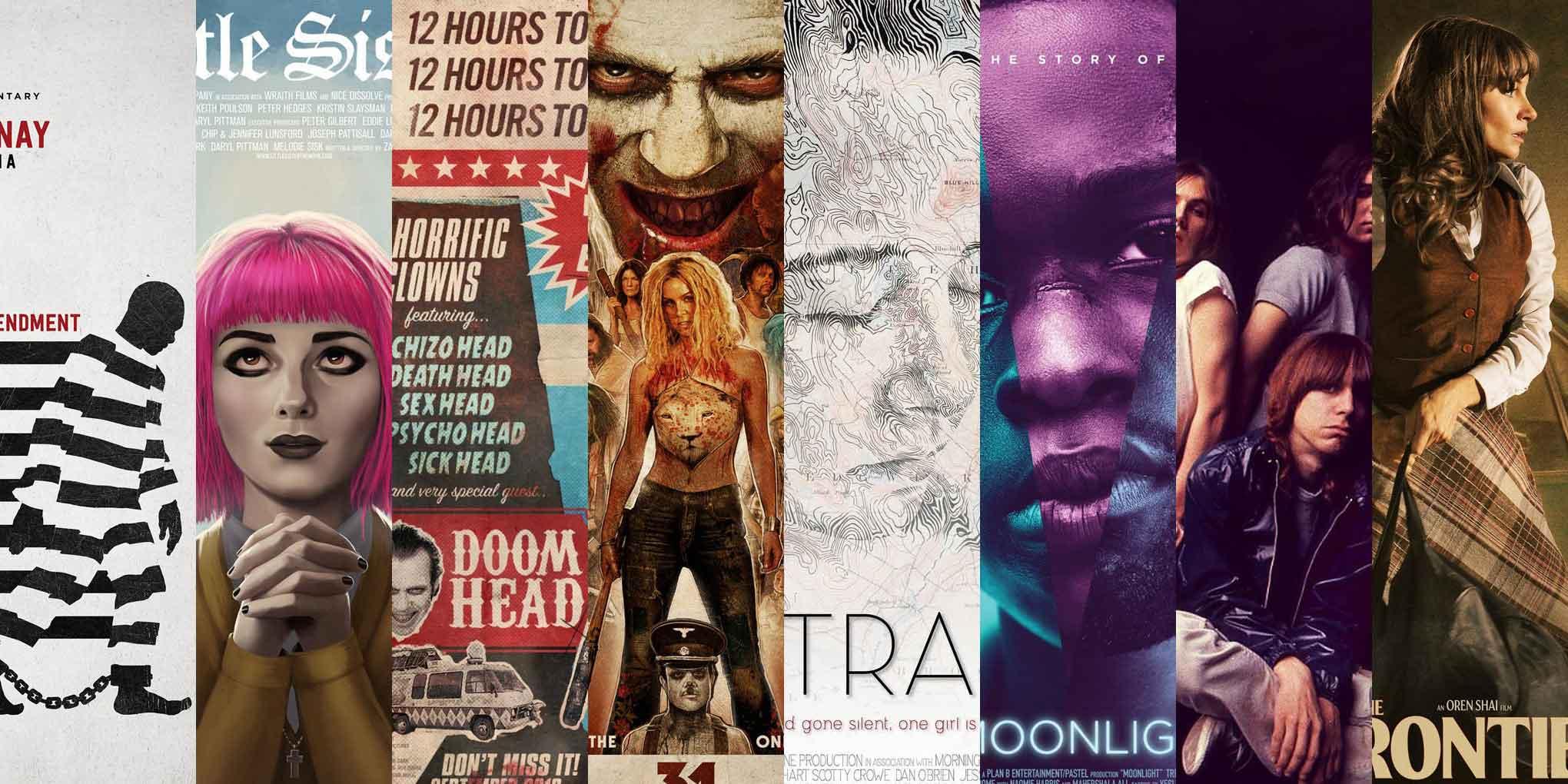
13th © 2016 Netflix. Poster by BOND. The flag’s stripes become the stripes in the classic garb of a prisoner, his feet shackled in chains.
Little Sister © 2016 Forager Films. Illustrated poster by Akiko Stehrenberger. The choice of typeface is clever: blackletter is as prevalent in religious literature as it is in goth culture. |
31 © 2016 Saban Films. Grindhouse-style poster designed by Gravillis, Inc.
31 © 2016 Saban Films. Illustrated poster designed by Gravillis, Inc., with masterful artwork by Paul Shipper, one of the rightful heirs to the legendary Drew Struzan. |
Astraea © 2015 Random Media. Inventive use of contour lines on a topographic map create the portrait of the female lead while the film title is set in Neutraface Titling.
Moonlight © 2016 A24. Gorgeous, poetic theatrical one-sheet designed by InSync Plus for one of the highest-rated movies of 2016. The three tastefully hued sections symbolize the story being told across three defining chapters in the life of the main character. Tobias Frere-Jones’ contemporary classic Gotham subtly shines. Like, literally. |
Gimme Danger © 2016 Magnolia Pictures. Fitting early 1970s typography on this poster designed by Gravillis Inc.
Gimme Danger © 2016 Magnolia Pictures. Poster designed by Gravillis Inc. |
The Frontier © 2016 Kino Lorber. Teaser poster designed by Robbergirl Productions. This lovely 1970s-style series makes beautiful use of Göran Söderström’s nostalgic Heroine.
The Frontier © 2016 Kino Lorber. Theatrical one-sheet designed by Robbergirl Productions. |